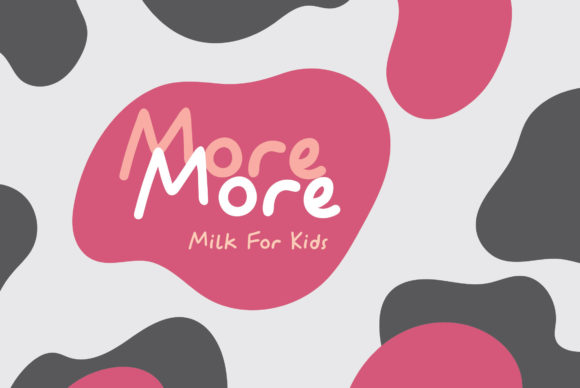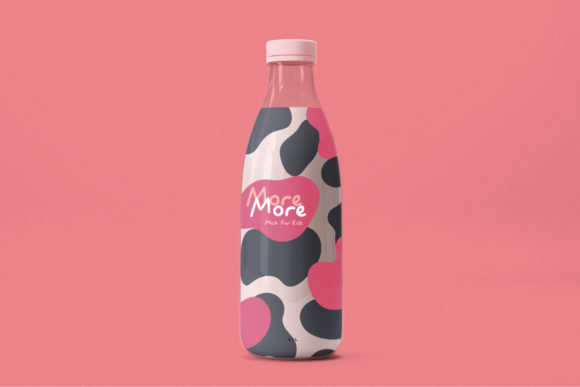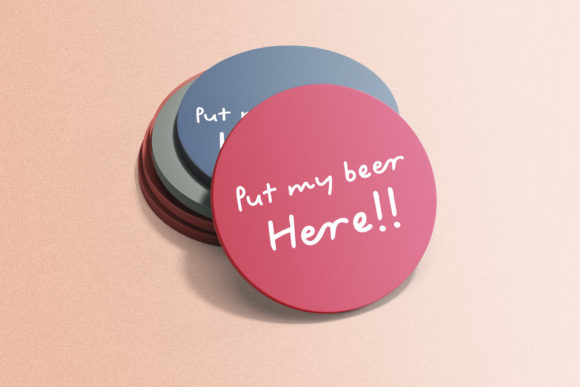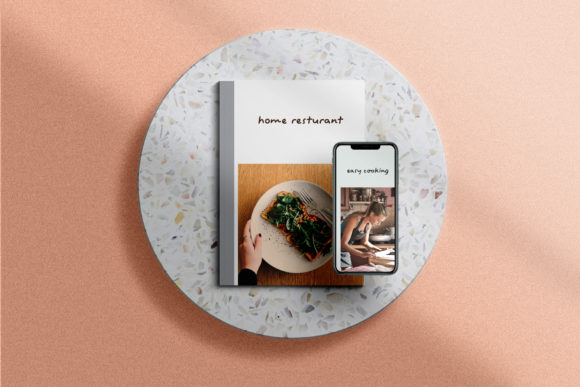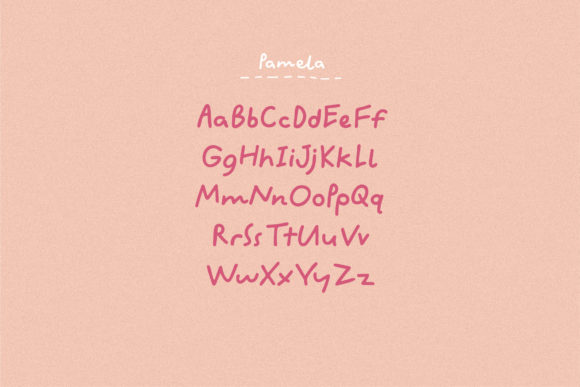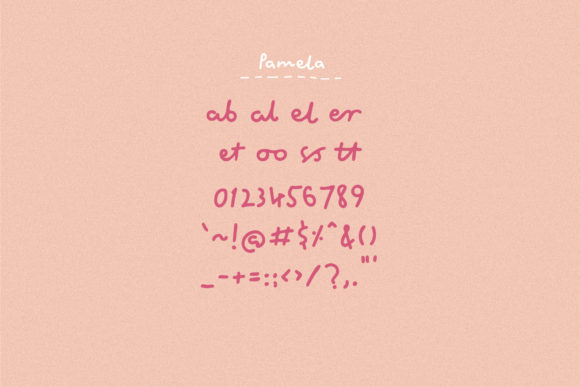
Pamela Font
About Pamela Font
Pamela is a cool and modern handwritten font. It is suitable for any branding, product packaging, invitation, quote, t-shirt, label, poster, logo that you wish to develop.